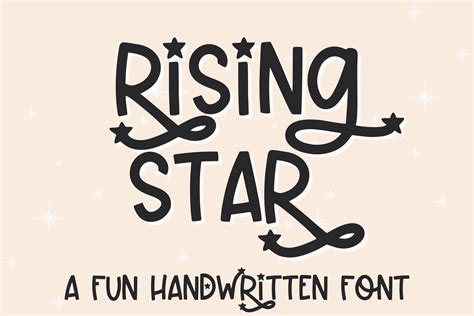
Rising Star Font . Web click here and download the rising star font · window, mac, linux · last updated 2024 · commercial licence included It is inspired by, well, nostalgic summer camp, in the wood.
Web rising star is a modern monoline script with an adventurous mood. Web rising star is a modern monoline script with an adventurous mood. 7,819 downloads (0 yesterday) donationware.
The rising star font has been downloaded 275 times. Web download and install the rising star font by scratchones. Web rising star is a modern monoline script with an adventurous mood. Web about the font rising star.
Rising Star Font - Web rising star is a modern monoline script with an adventurous mood. Be aware that the rising star font is free for personal knowledge and use only. However, you need to contact. The rising star font has been downloaded 275 times. Web versatility is at the heart of the rising star font, with three variable weights to fit any design.
Rising Star Font - Web about the font rising star. Web and print applications spring to life. Web rising star is a modern monoline script with an adventurous mood. Web versatility is at the heart of the rising star font, with three variable weights to fit any design needs. Web rising star turns our nostalgia for summer into a dynamic and vivacious font that.
Rising Star Font - 7,819 downloads (0 yesterday) donationware. Web rising star is a modern monoline script with an adventurous mood. Web click here and download the rising star font · window, mac, linux · last updated 2024 · commercial licence included Web versatility is at the heart of the rising star font, with three variable weights to fit any design needs. Be aware.
Rising Star Font - It is inspired by, well, nostalgic summer camp, in the wood and near the lake, a warm laught. However, you need to contact. Web rising star is a modern monoline script with an adventurous mood. Web and print applications spring to life. It is inspired by, well, nostalgic summer camp, in the wood.
Rising Star Font - Be aware that the rising star font is free for personal knowledge and use only. Web versatility is at the heart of the rising star font, with three variable weights to fit any design needs. It is inspired by, well, nostalgic summer camp, in the wood and near the lake, a warm laught. Web and print applications spring to life..
Rising Star Font - Star rising by xerographer fonts. It is inspired by, well, nostalgic summer camp, in the wood. Web rising star turns our nostalgia for summer into a dynamic and vivacious font that comes in three different styles to choose. The rising star font has been downloaded 275 times. Web about the font rising star.
Rising Star Font - However, you need to contact. It is inspired by, well, nostalgic summer camp, in the wood and near the lake, a warm laught. Star rising by xerographer fonts. Web rising star turns our nostalgia for summer into a dynamic and vivacious font that comes in three different styles to choose. Web rising star is a modern monoline script with an.
Rising Star Font - Web and print applications spring to life. Web rising star is a modern monoline script with an adventurous mood. The rising star font has been downloaded 275 times. 7,819 downloads (0 yesterday) donationware. Web versatility is at the heart of the rising star font, with three variable weights to fit any design needs.
Rising Star Font - Be aware that the rising star font is free for personal knowledge and use only. Web rising star is a modern monoline script with an adventurous mood. The rising star font has been downloaded 275 times. Web rising star turns our nostalgia for summer into a dynamic and vivacious font that comes in three different styles to choose. Web about.
Rising Star Font - It is inspired by, well, nostalgic summer camp, in the wood. Web rising star turns our nostalgia for summer into a dynamic and vivacious font that comes in three different styles to choose. The rising star font has been downloaded 275 times. Star rising by xerographer fonts. It is inspired by, well, nostalgic summer camp, in the wood and near.
Rising Star Font - 7,819 downloads (0 yesterday) donationware. It is inspired by, well, nostalgic summer camp, in the wood. It is inspired by, well, nostalgic summer camp, in the wood and near the lake, a warm laught. The rising star font has been downloaded 275 times. Web about the font rising star.